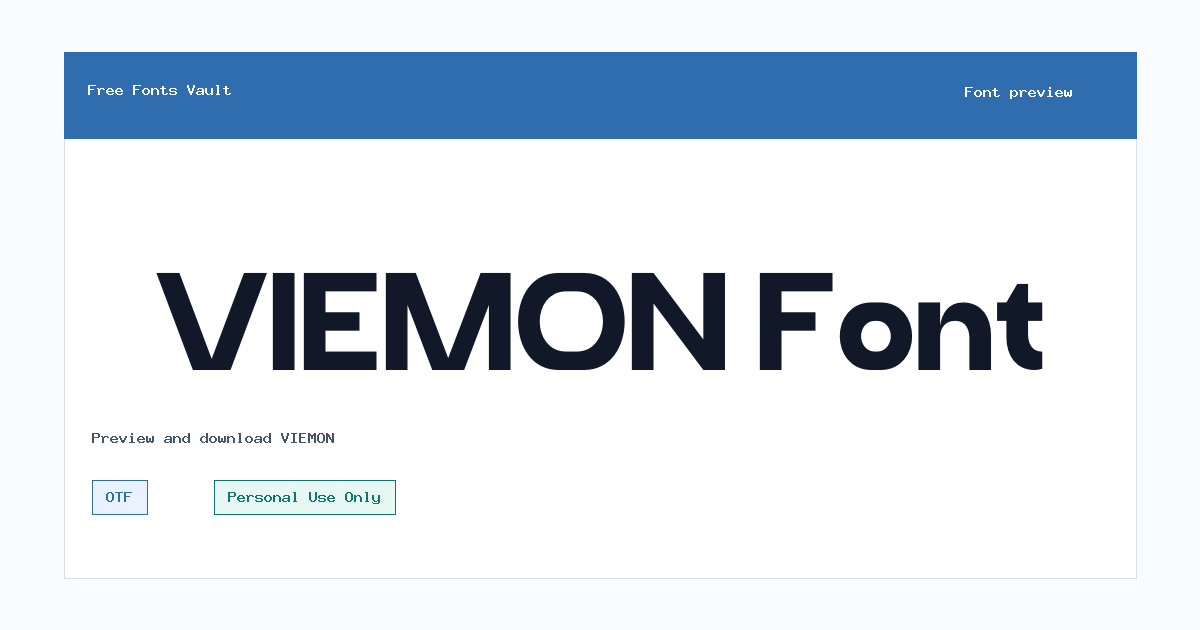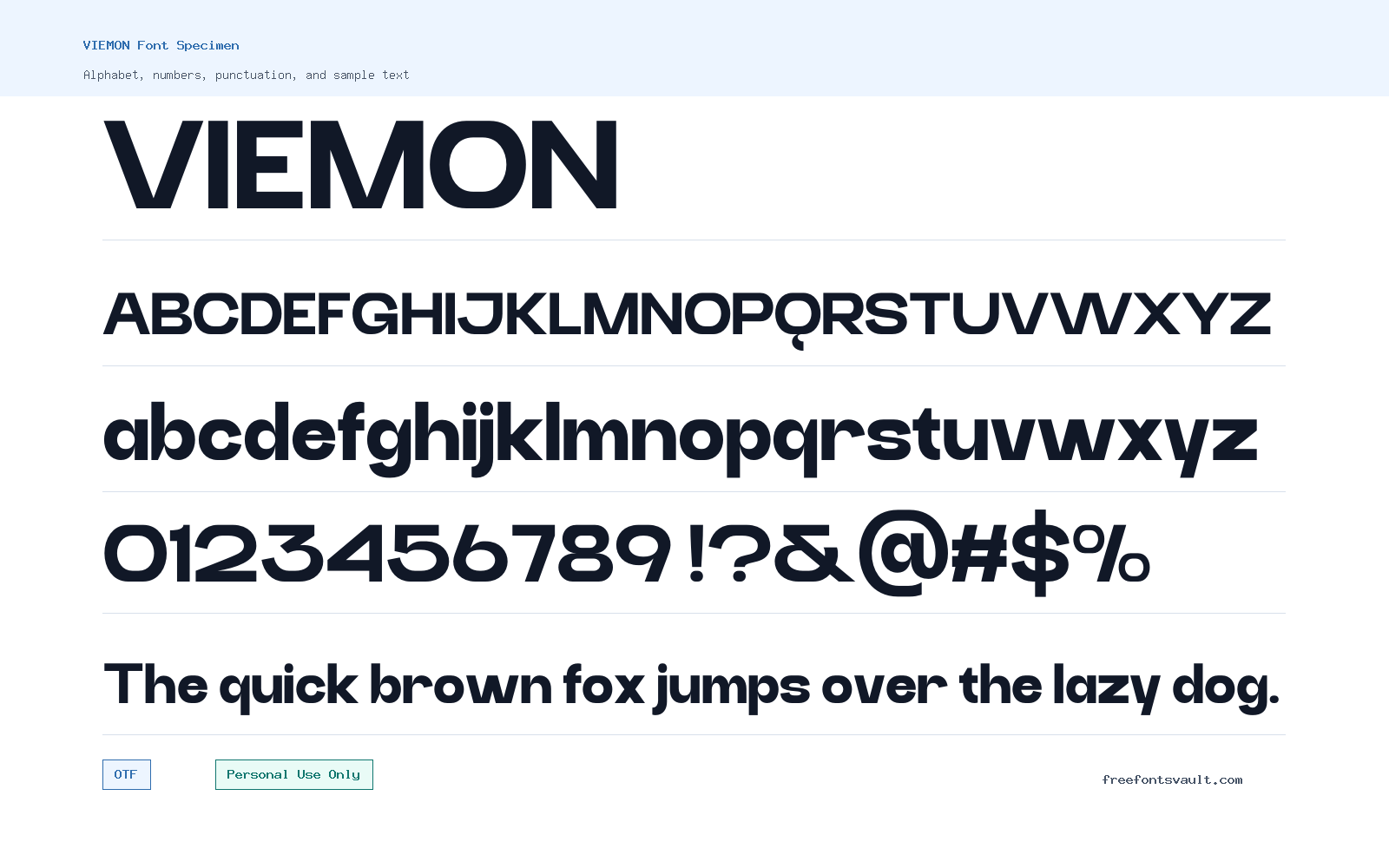
VIEMON
- Designer Maikohatta
VIEMON font.
VIEMON is a sans serif display font with a clean, modern feel, suited to short pieces of text where the letter shapes can stand out. It is best treated as a design font for titles, logos, posters, and mockups rather than long reading copy.
About VIEMON Font
For logo work, try VIEMON in short names first. A font can look strong in a sample word but feel different once it is used with repeated letters, narrow characters, or long brand names. Check the shapes at both large and small sizes, then adjust tracking if the letters feel too tight or too open. For posters and thumbnails, give the font enough space around it and pair it with a quieter text face for supporting information. A simple sans serif or readable serif can handle body copy while VIEMON carries the main title. Avoid using it for dense paragraphs unless testing shows that the spacing and readability hold up for your layout.
- Sans serif display style suited to short text, headings, and branding experiments
- Single normal-weight style, making it simple to test in previews and mockups
- Useful for large-size typography where the font’s shape and spacing are easy to judge
- Logo concepts and brand name mockups
- Website hero headings and landing page mockups
- Social media graphics, thumbnails, and quote cards
- Packaging drafts, labels, and short display text
The designer is listed as Maikohatta. No foundry name or designer website is listed for this font entry.
Who designed VIEMON?
VIEMON is listed with Maikohatta as the designer.
Is VIEMON good for logos?
It can be useful for logo concepts and brand-name mockups, especially when the wordmark is short. Test your exact name, spacing, and small-size readability before relying on it.
Does VIEMON include bold or italic styles?
Only one regular, normal-weight style is listed for this font family.
What should I pair with VIEMON?
Pair it with a simple, highly readable font for body text. A neutral sans serif is the safest choice when VIEMON is used for titles or logo-style text.